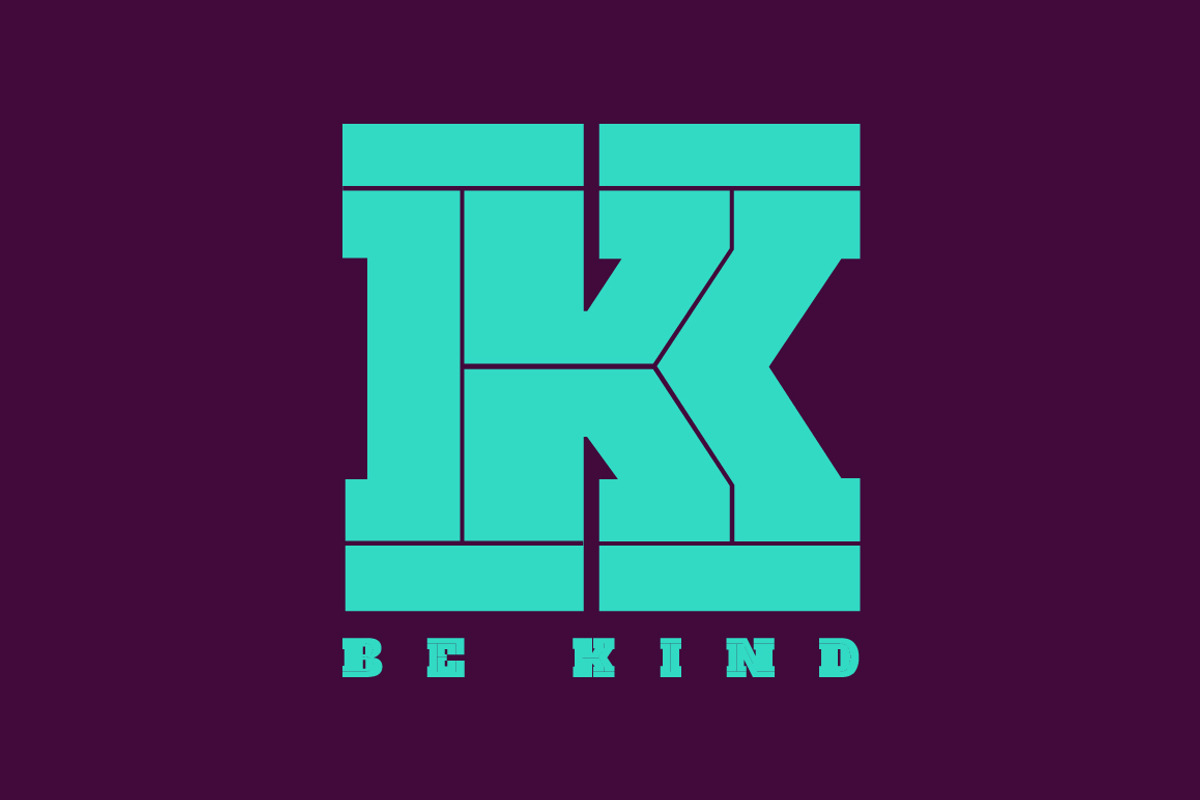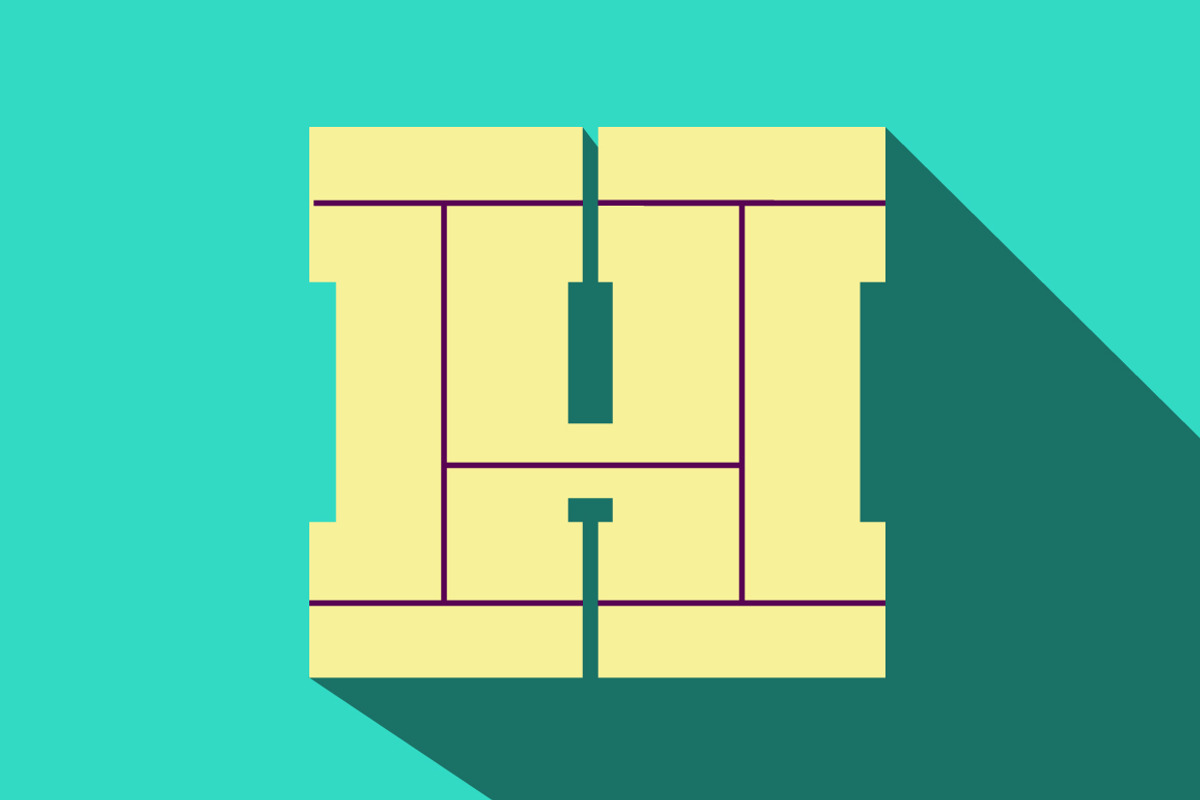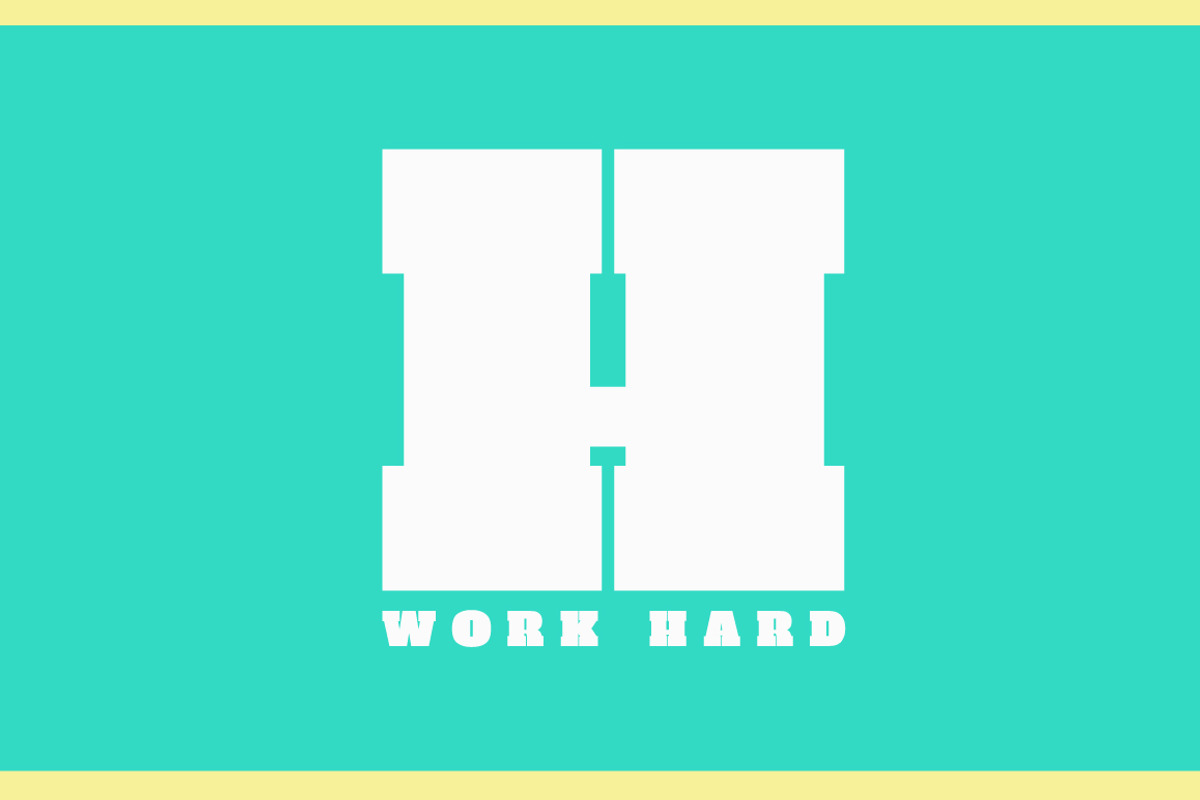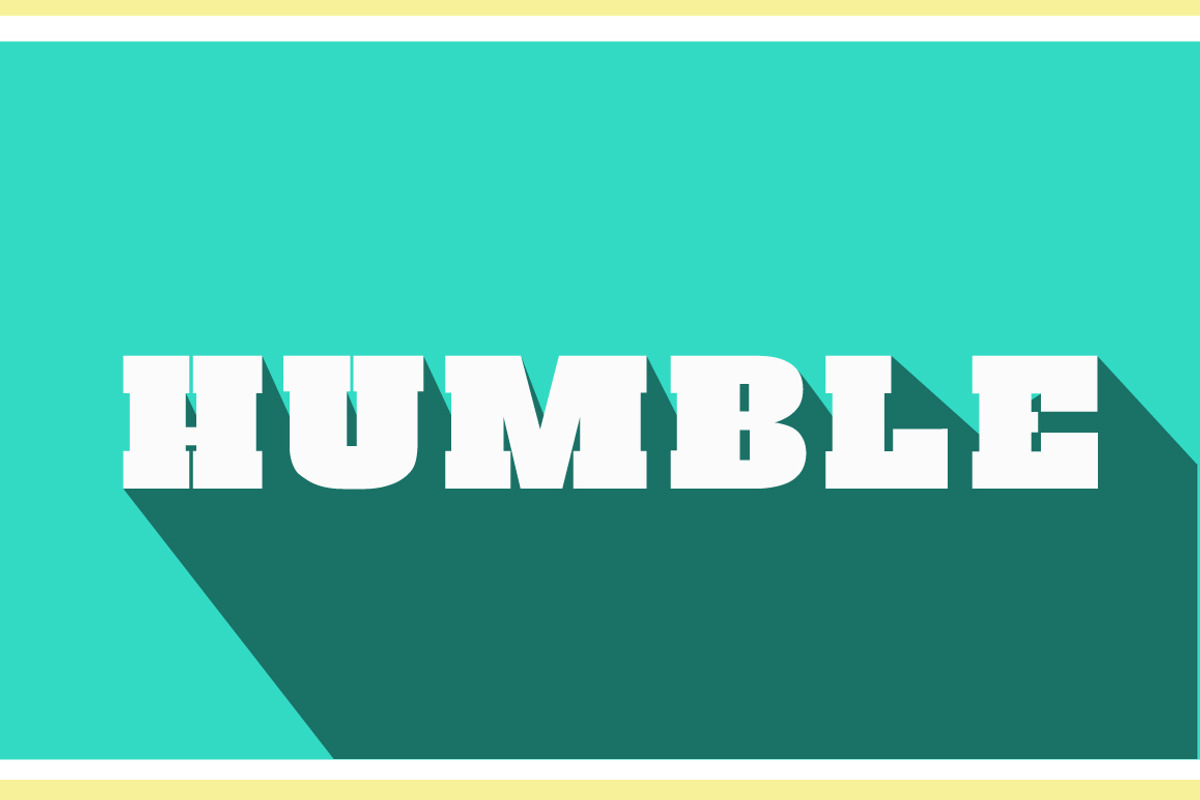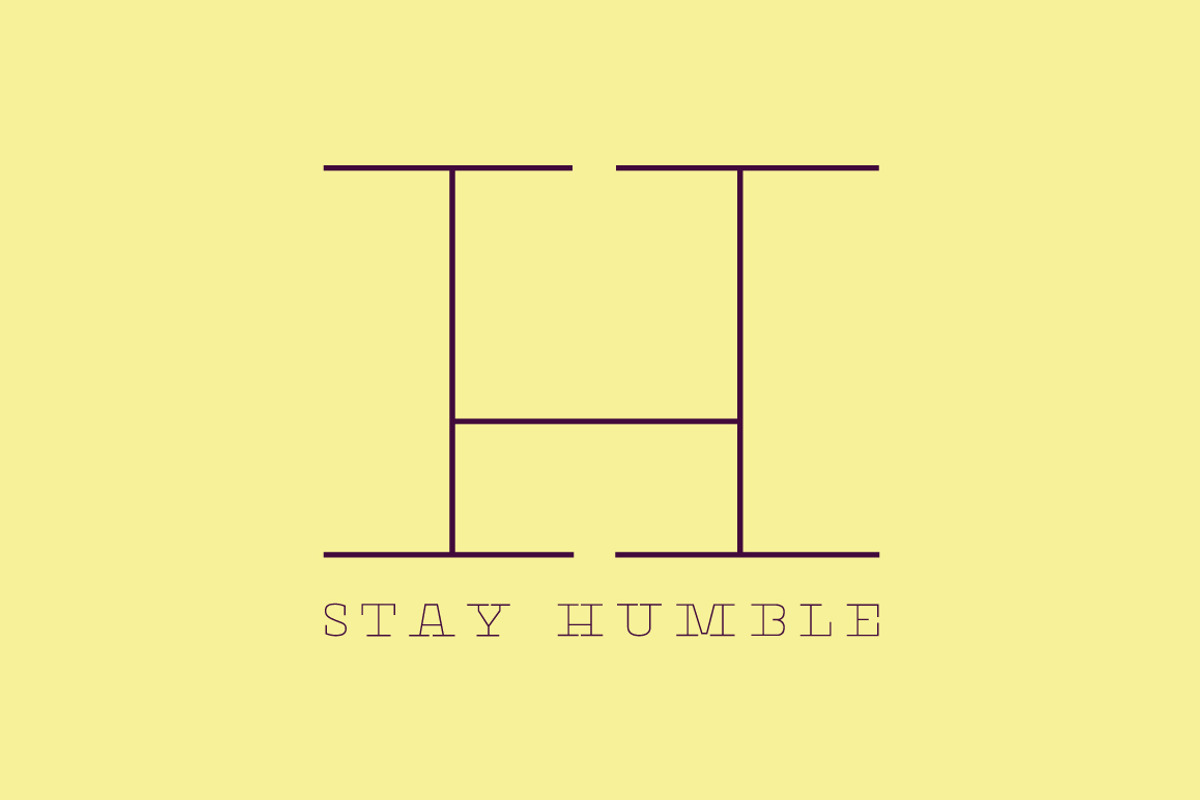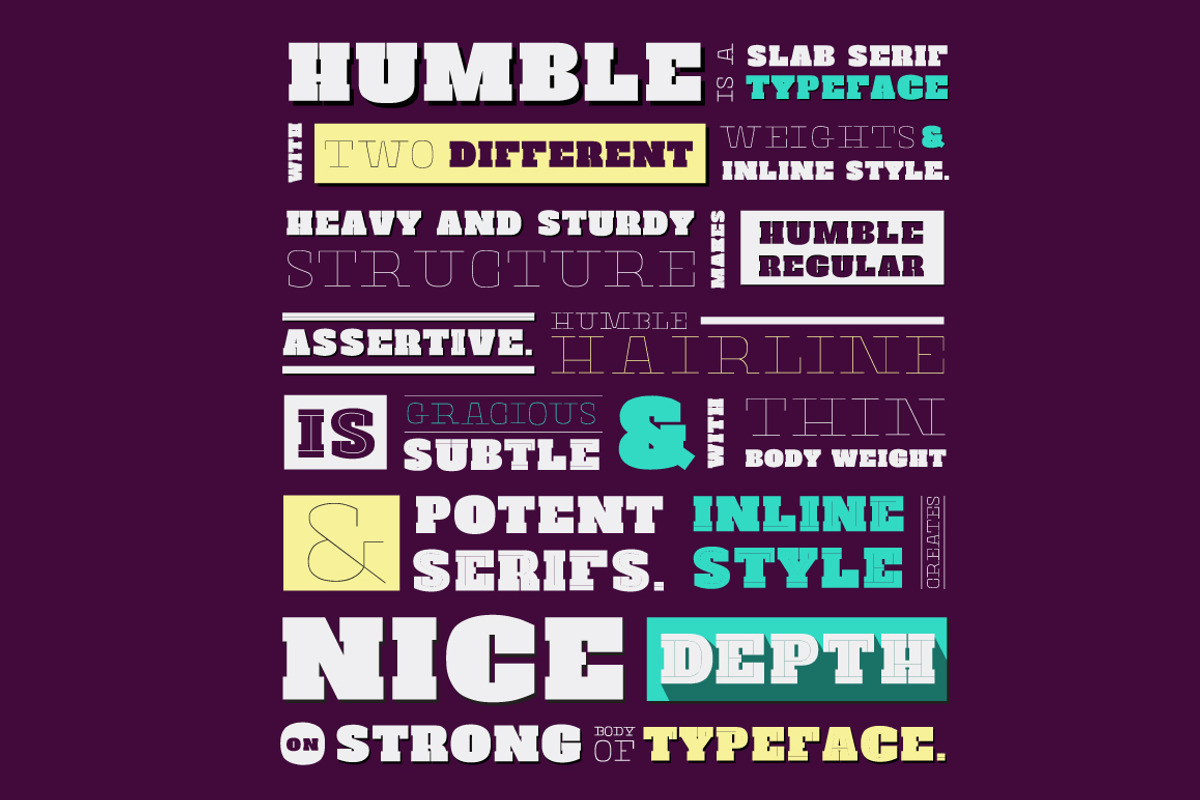
Humble Font Family
Humble Font Family by Nilyastuff is a font selected for branding, posters, packaging, typography.
Why Humble Font Family is worth a look
Humble Font Family by Nilyastuff fits naturally into Branding, posters, packaging, typography.